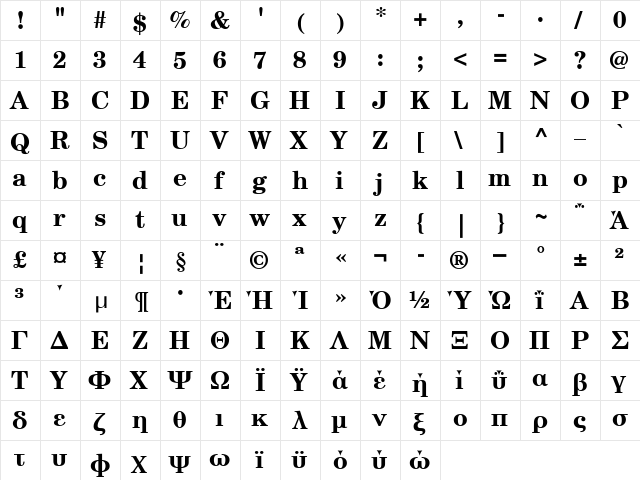
NewCenturySchlbkGreek Up Bold
Design Context for NewCenturySchlbkGreek Up Typeface
NewCenturySchlbkGreek Up offers clean, dependable letterforms without strong stylistic allegiance, making it a practical choice for designers who need flexibility. Its bold stroke weight gives it real presence on the page.
Pro Tip: Pair NewCenturySchlbkGreek Up with a font of contrasting weight or personality to build a more expressive typographic hierarchy.